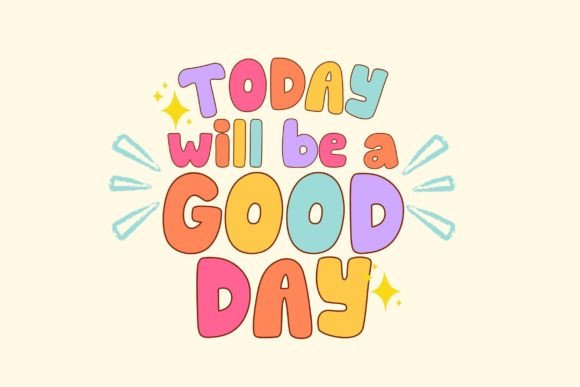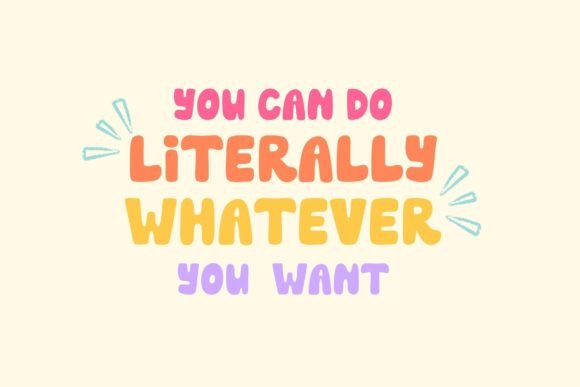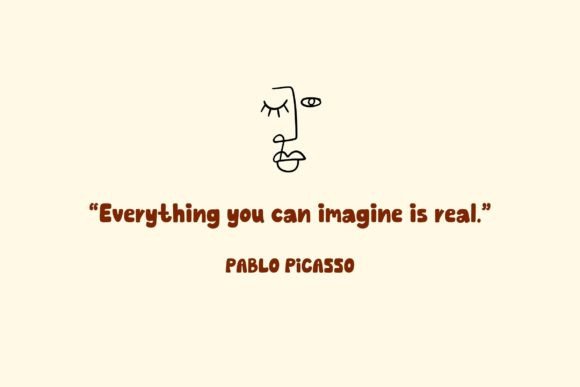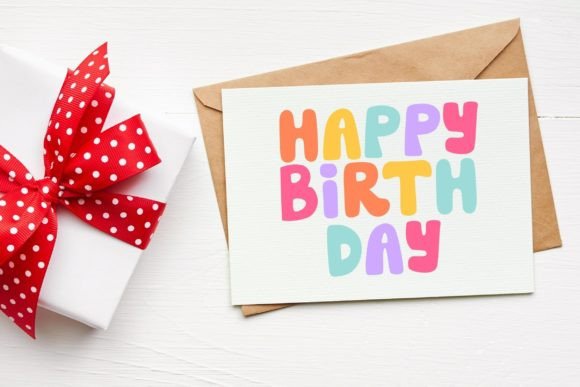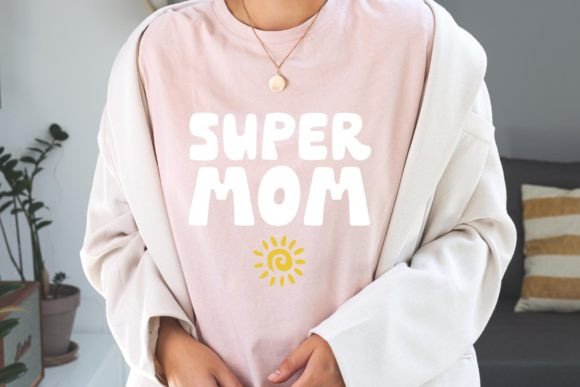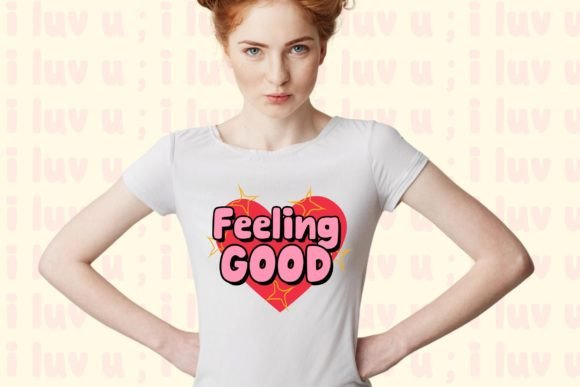
Introduction to Eternal Sunshine Font
Introducing “Eternal Sunshine,” the playful and bold handwritten block font that adds a delightful touch of playfulness to your designs.
With its strong, kid-friendly appeal, “Eternal Sunshine” is the perfect choice for a wide range of creative projects Whether you’re designing vibrant shirts, charming tote bags, cheerful mugs, eye-catching stickers, inviting invitations, memorable logos, engaging social media content, lively posters, inspiring quotes, or captivating wall art, this font infuses your work with a playful and bold character.